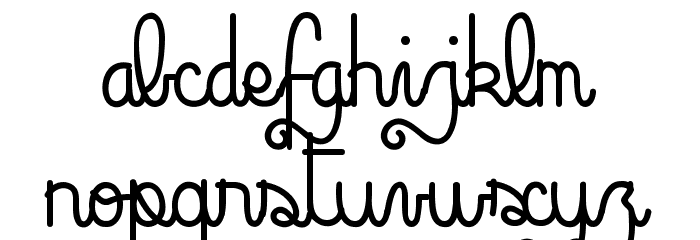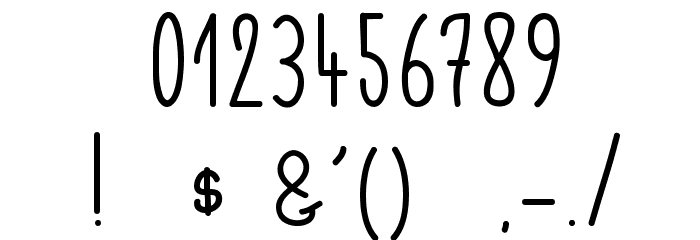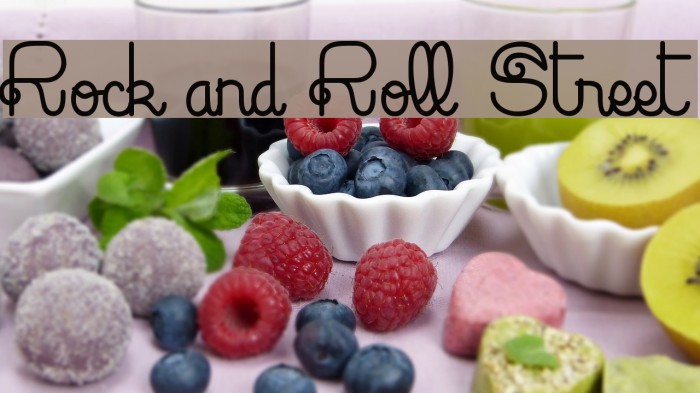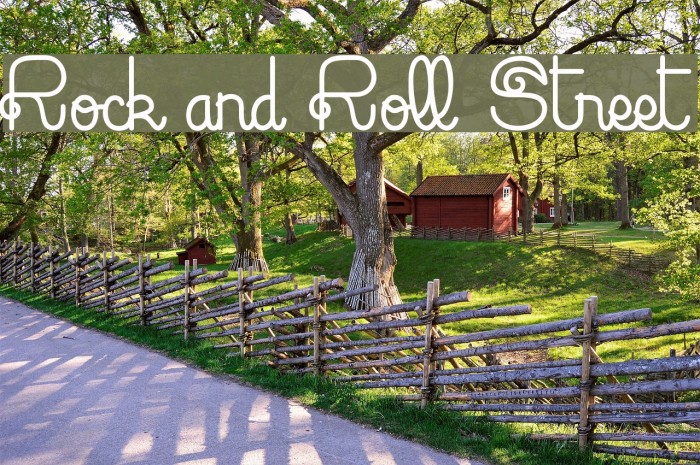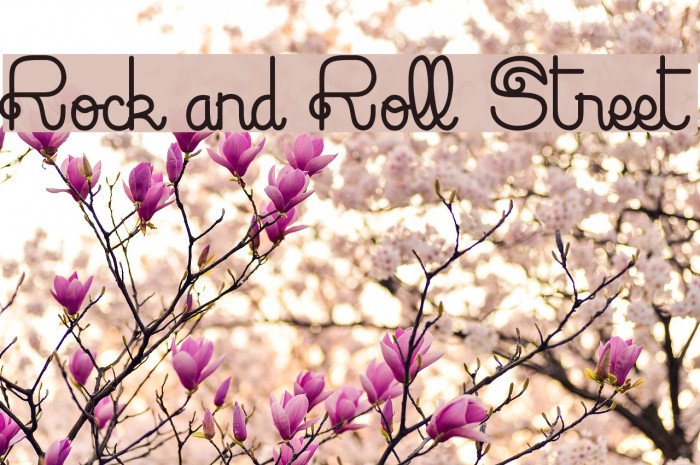
Rock and Roll Street Font
This font features a playful and decorative style, characterized by its swirling, curly embellishments on each letter. The uppercase letters are bold and eye-catching, with unique flourishes that give them a whimsical feel. The lowercase letters maintain the same decorative theme, with a slightly more fluid and connected appearance, enhancing the font's overall charm. Numbers and special characters are designed to match the playful aesthetic, making them suitable for creative and artistic projects. The font's distinct style makes it ideal for use in designs that require a touch of fun and personality.
A playful, decorative font with swirling embellishments and whimsical charm.
- Proposed Projects: Perfect for invitations, greeting cards, children's books, and playful branding.
- Use Case: Headlines, Logos, Artistic projects